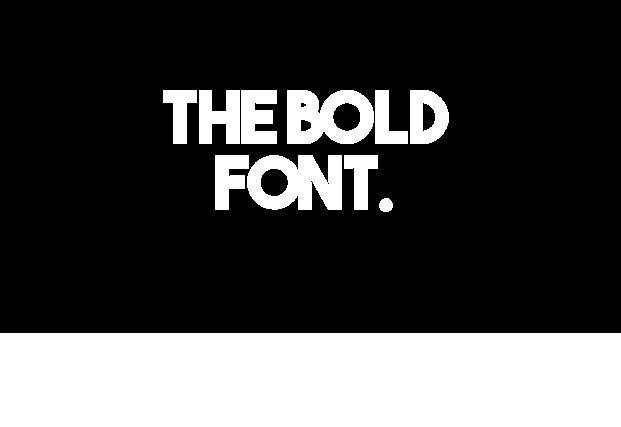
The Bold Font
The Bold Sans Font is a sans serif font which geometric and humanist make a blend. Make it more attractive and dynamic. The Bold is designed for display and body text. Maximizes thickness while maintaining balance in each form. This makes it especially suitable for all kinds of creative projects.